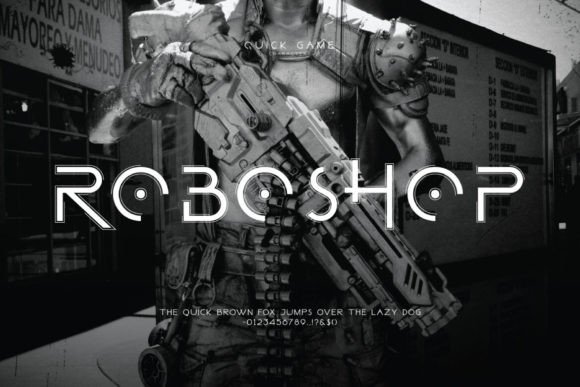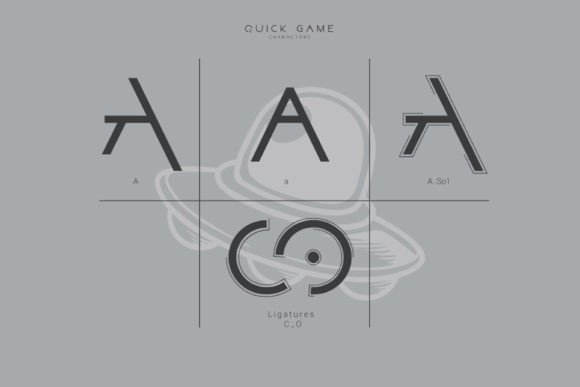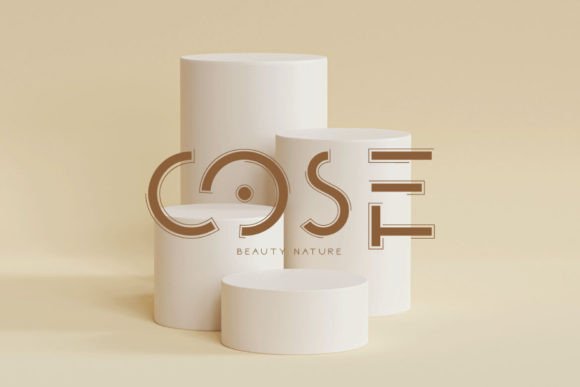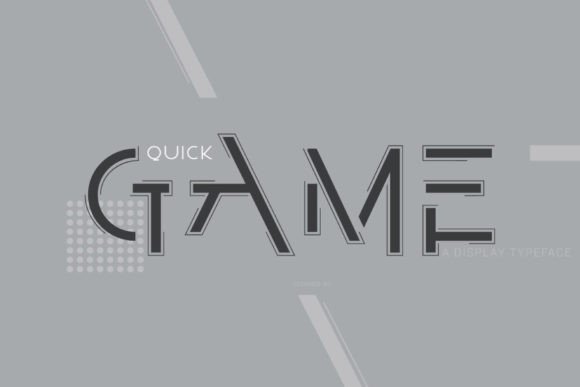
Introduction to Quick Game Font
Introducing β€œQuick Game”, the futuristic font that was inspired from a sci-fi movie.
It is a display font that is suitable on your headlines, magazines, flyers, posters or neon installations Also clearly shaped to be applied in print design like t-shirts, mugs, banners or motion graphics.
Quick Game Font offers exceptional quality and versatility, making it a valuable addition to your design toolkit. Whether you’re creating for personal projects or commercial use, Quick Game Font delivers professional results.